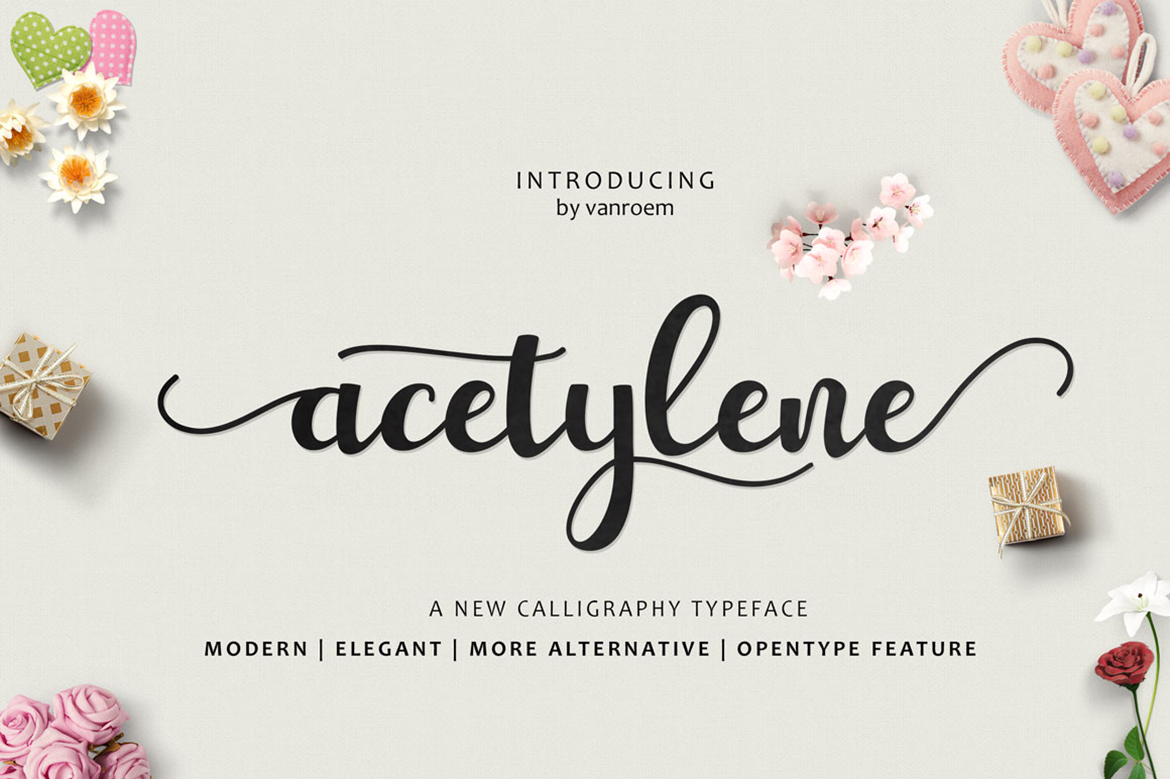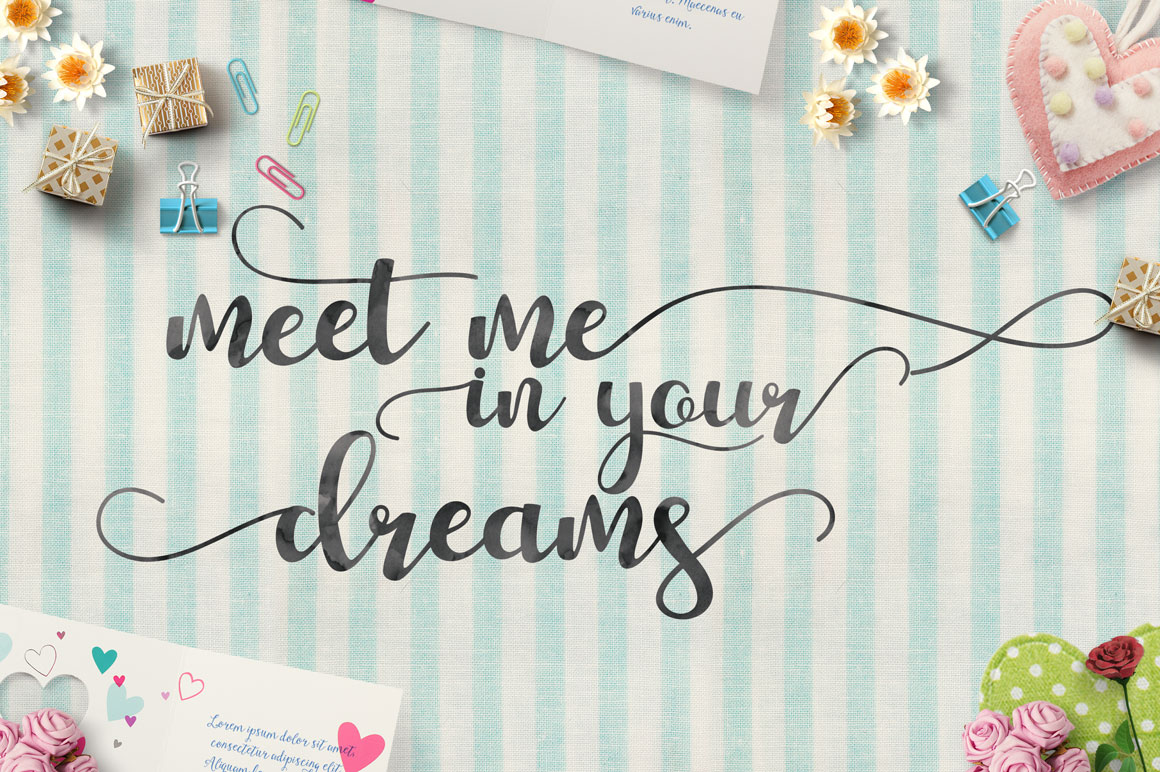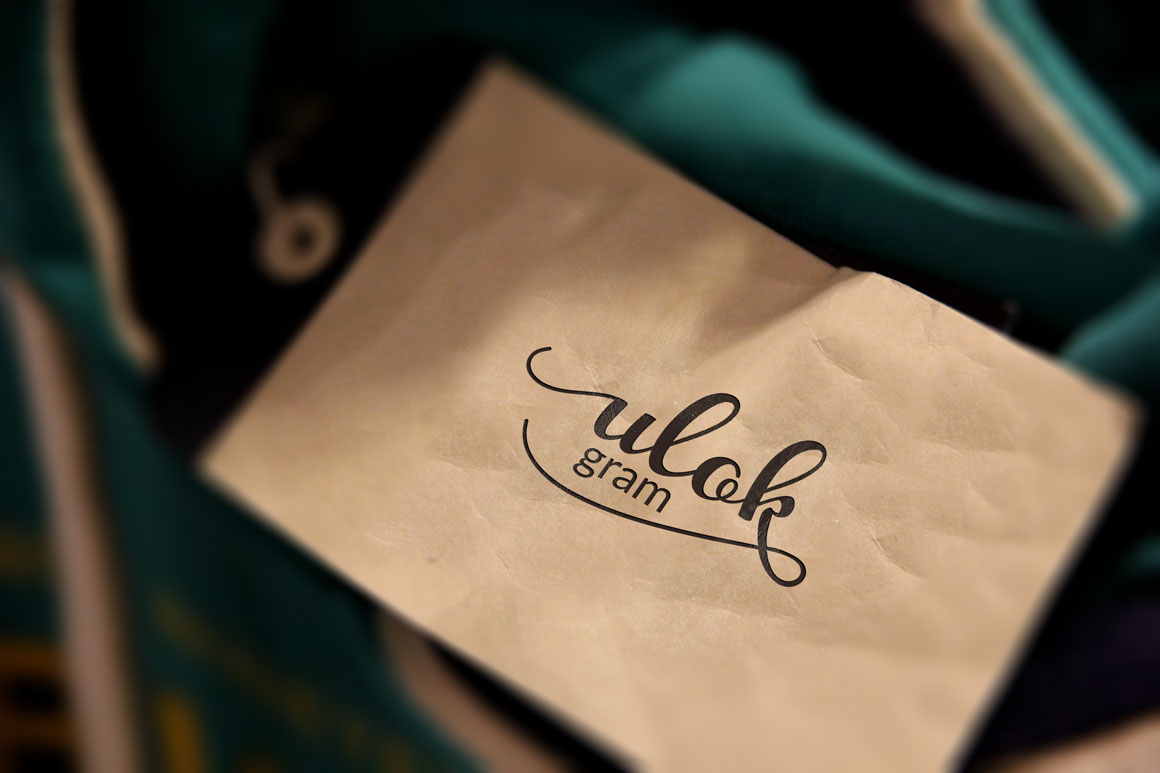
About Acetylene Script Font
The Acetylene Script is a new, modern calligraphy font that combines from copperplate to contemporary design. It’s elegant with a classical touch. Combined with the extra bouncy curves & loops, the Acetylene font is guaranteed to give off a stunning vibe.